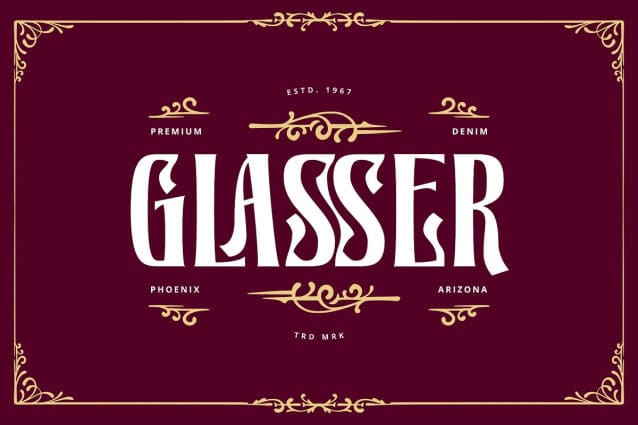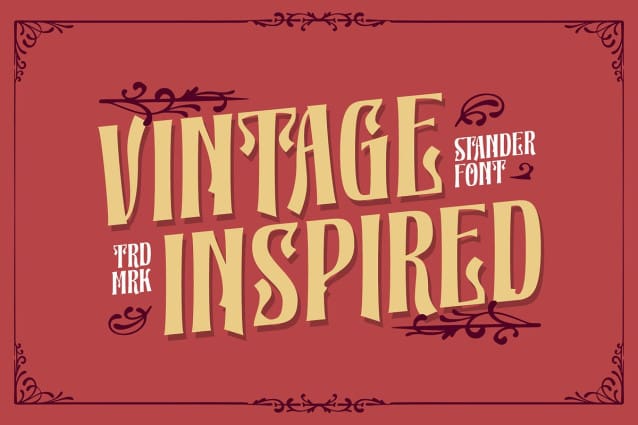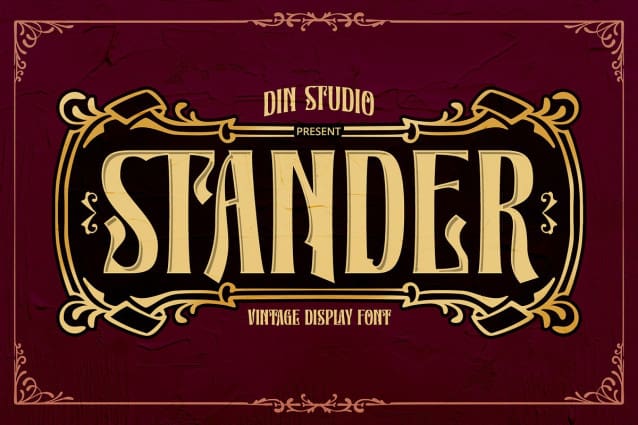
Stander Vintage Font
Stander Vintage Font a bold, vintage-style display font designed to stand out with authority. Crafted in uppercases and strong weight that captures attention while evoking a sense of timelessness. The consistent letter proportions provide a balanced and cohesive appearance, making it ideal for headlines, logos, and branding projects that require a classic yet impactful look. As an extra, this font gives ornaments.